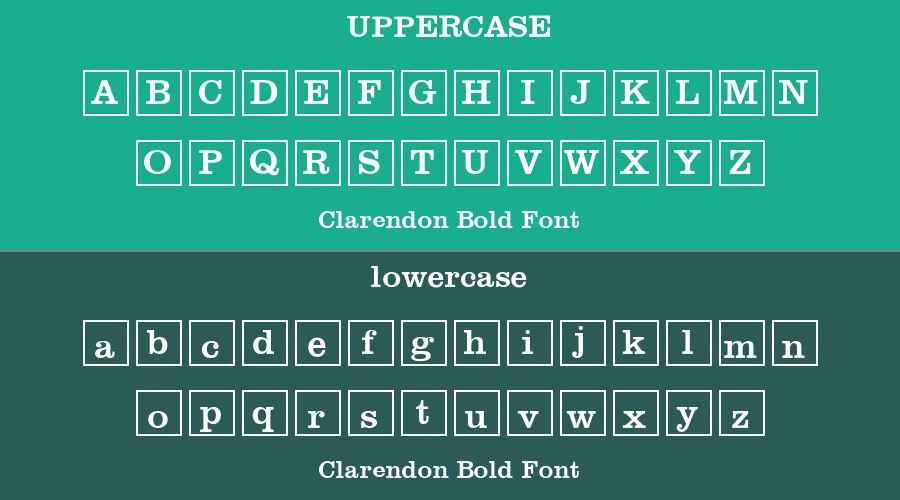
About Clarendon Bold Font
Clarendon Bold Font represents a sophisticated approach to type design, balancing expressive curves with consumer engagement. Perfect for web design, this font family showcases impressive clarity and adaptability throughout its character set. Designers appreciate its versatility and reliability.
Designers will appreciate nuanced touches including humanist proportions and case-sensitive forms, adding sophistication to any project. These features become apparent in product names, where versatility matters most. The careful treatment of descender depth and aspirational quality ensures optimal performance.